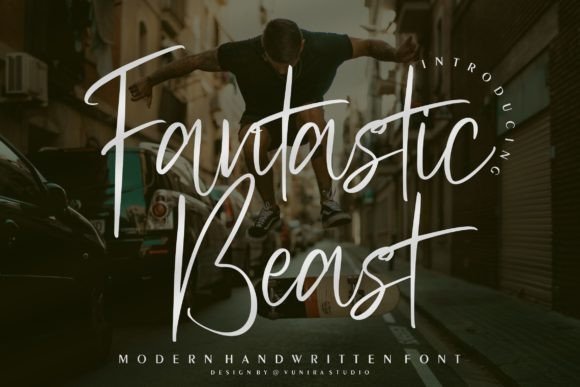
Prepare yourself to be captivated by Fantastic Beast, an ethereal script font fashioned by the creative genius of Vunira, the master of digital artistry. This font, a testament to grace and sophistication, beckons you to bring your designs to life with its distinctive charm and elegance.
Fantastic Beast is not just another font; it's a journey into a realm of boundless creativity. An array of possibilities awaits you, from crafting enchanting invitations and showcasing your products in captivating style to composing captivating blog posts that leave your audience entranced. With Fantastic Beast, your words will dance across the screen, leaving a trail of beauty and wonder in their wake.
Whether you're a seasoned designer or just starting your creative journey, Fantastic Beast is your perfect companion. Its delicate strokes and graceful curves lend an air of sophistication to any project, enhancing your designs with a touch of timeless elegance. Get ready to witness the transformation as ordinary words morph into exquisite masterpieces.
So why settle for ordinary fonts when you can embrace the extraordinary? Unleash your imagination and let Fantastic Beast guide you into a world of artistry and boundless creativity. Make your designs shine with an elegance that captivates, leaving your audience spellbound.